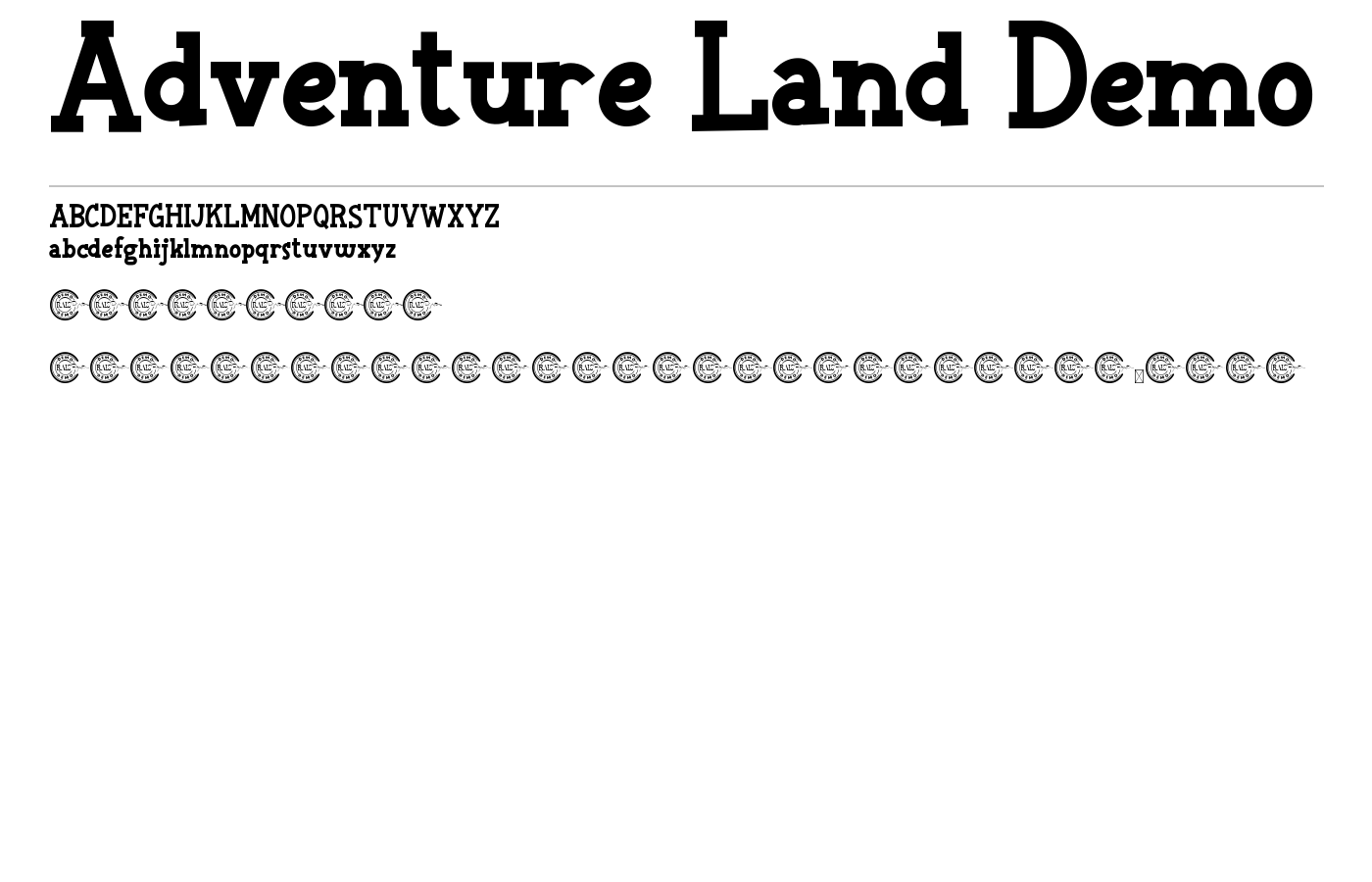
Adventure Land Demo is a bold slab serif font with strong, blocky serifs and a sturdy, playful character. Its medium contrast and slightly condensed letterforms give it a vintage, adventurous personality suitable for eye-catching headlines, logos, and themed packaging that want to convey boldness and fun with a classic twist. This font works especially well in designs that need to stand out with a timeless yet lively feel.
Adventure Land Demo Font
About Adventure Land Demo Font